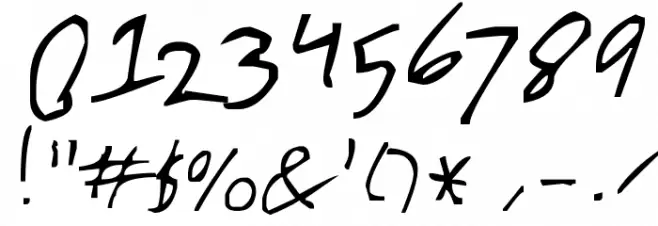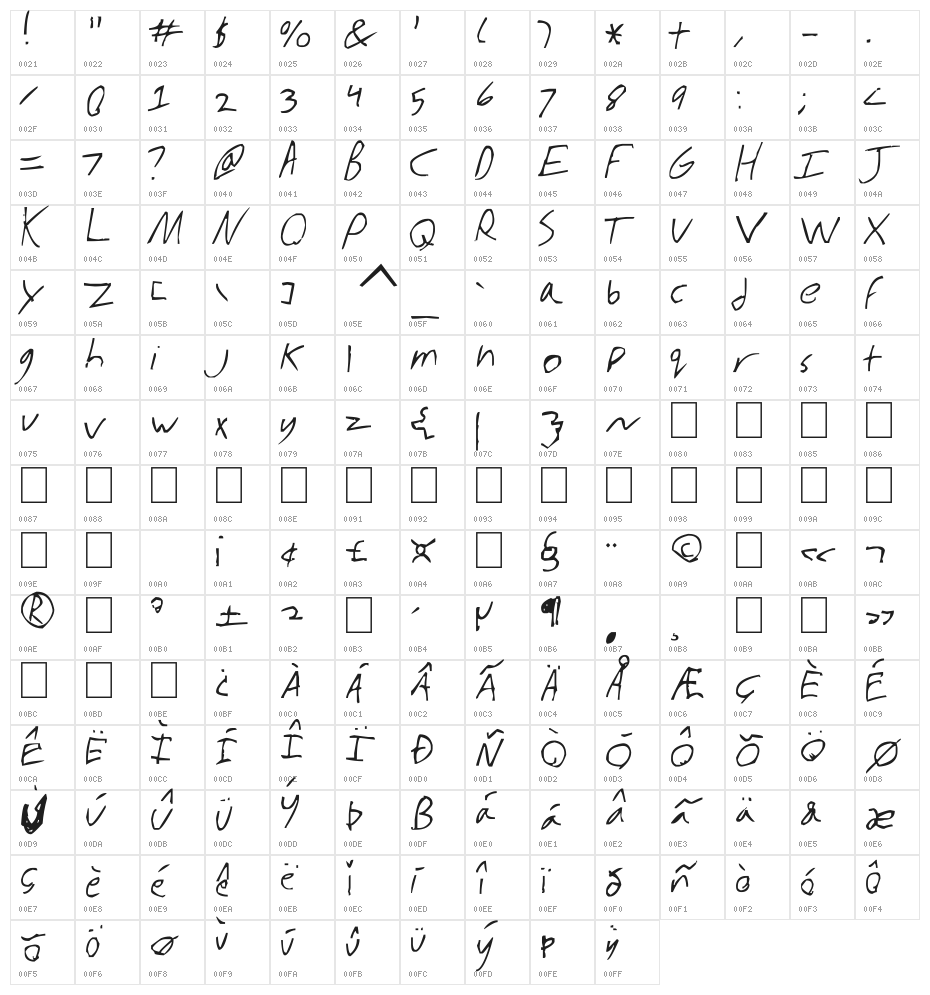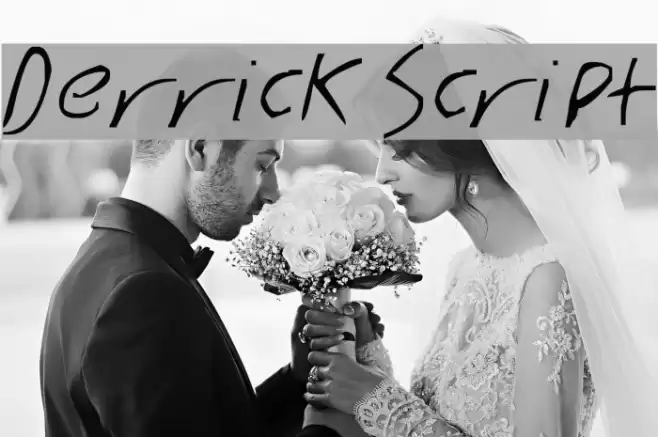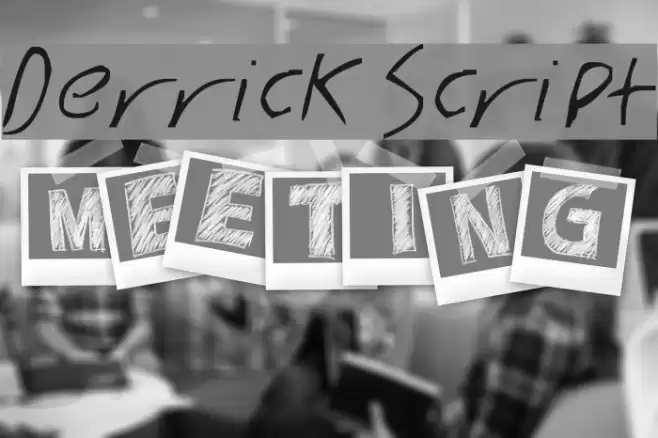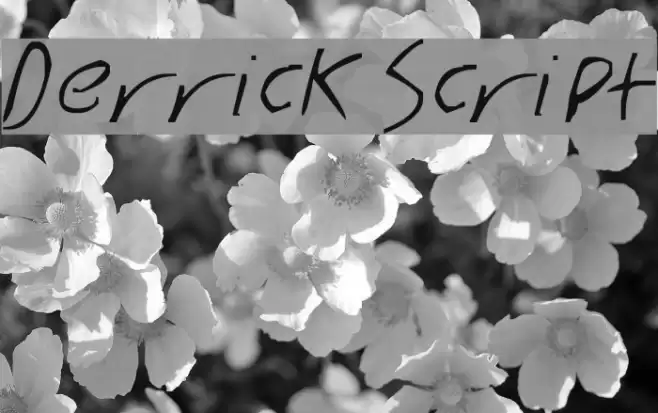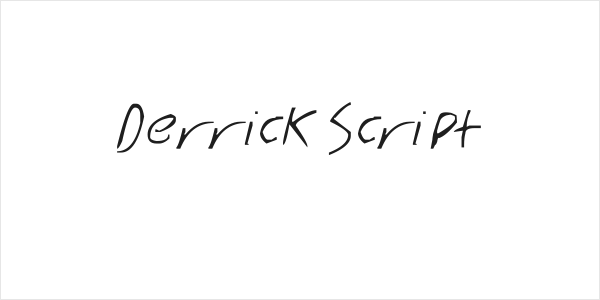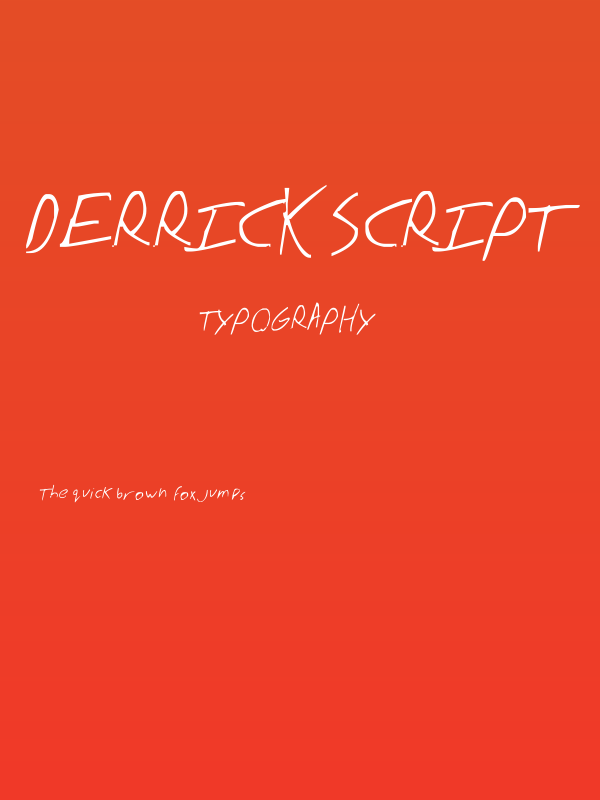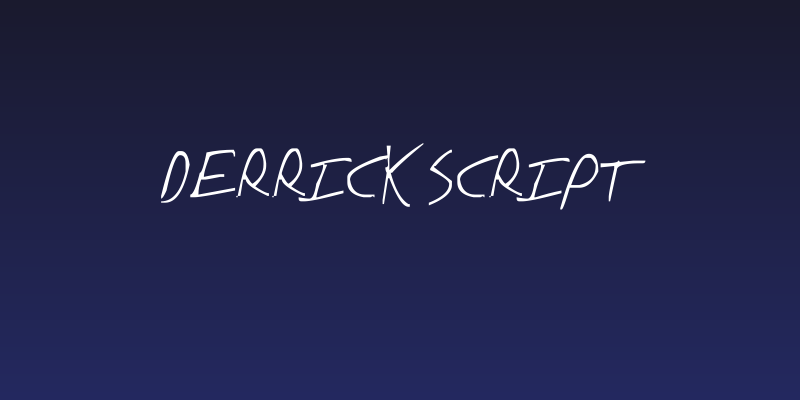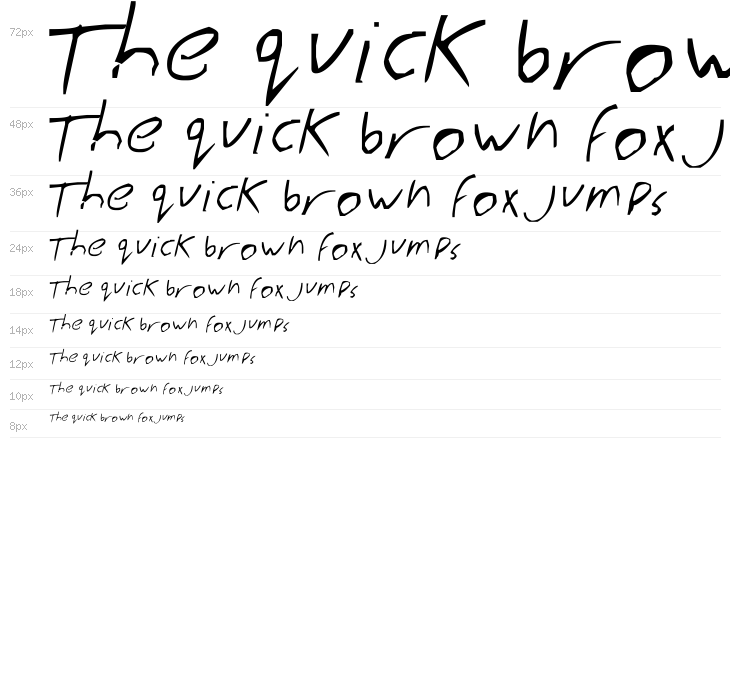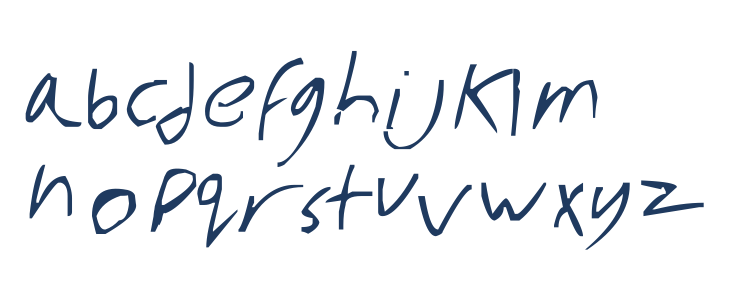
Derrick Script Font
Derrick Script Description
This font exudes a casual and handwritten style, characterized by its fluid and dynamic strokes. The letters are slightly slanted, giving it a natural and spontaneous appearance. The uppercase and lowercase letters maintain a consistent flow, while the numbers and special characters complement the overall aesthetic. The strokes vary in thickness, adding to the handwritten feel, and the characters are slightly irregular, enhancing its authenticity. This font is perfect for projects that require a personal touch or an informal vibe.
Overall StyleCasual
Use CaseLogos, Invitations, Personal notes
Proposed ProjectsIdeal for greeting cards, personal notes, invitations, and creative projects that require a personal touch.